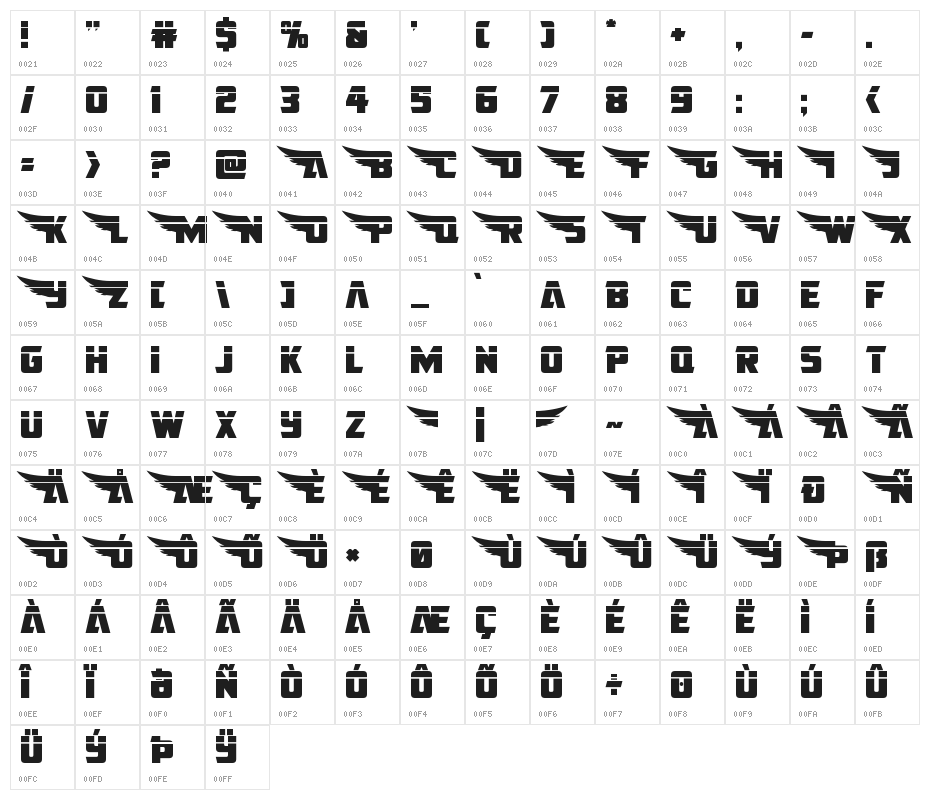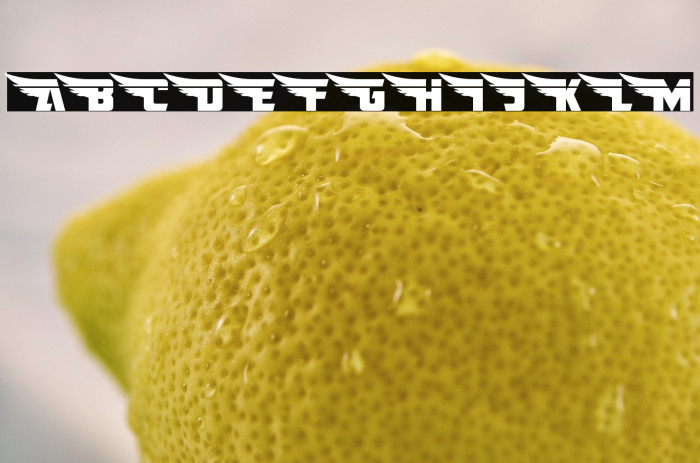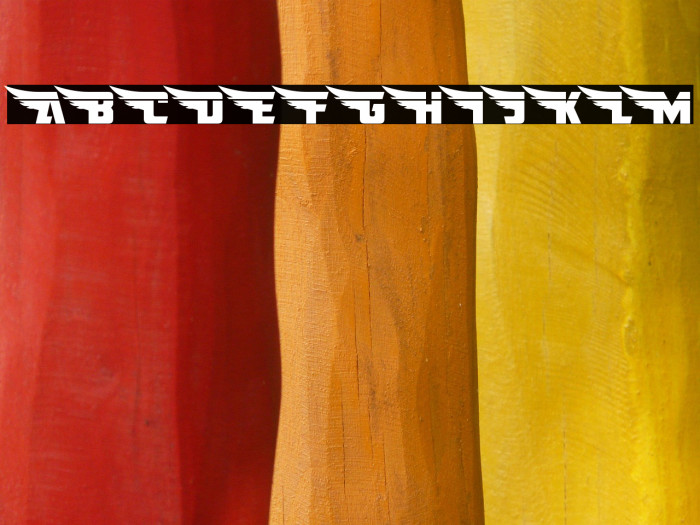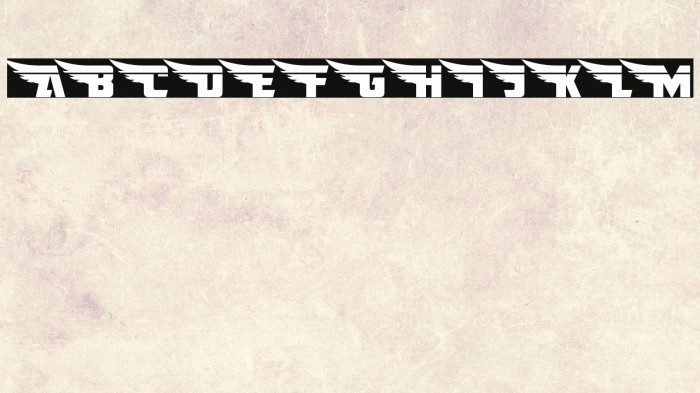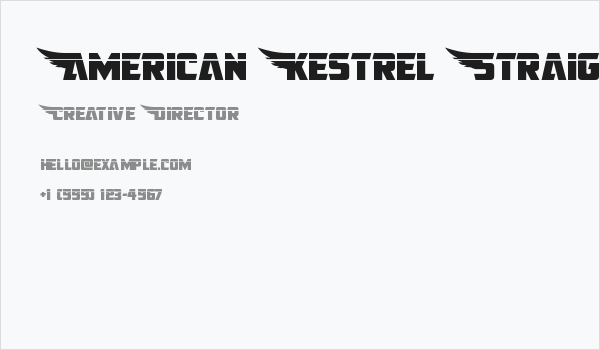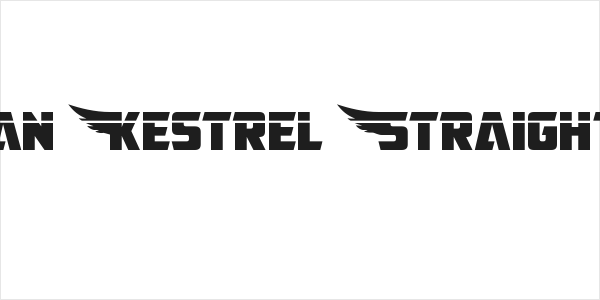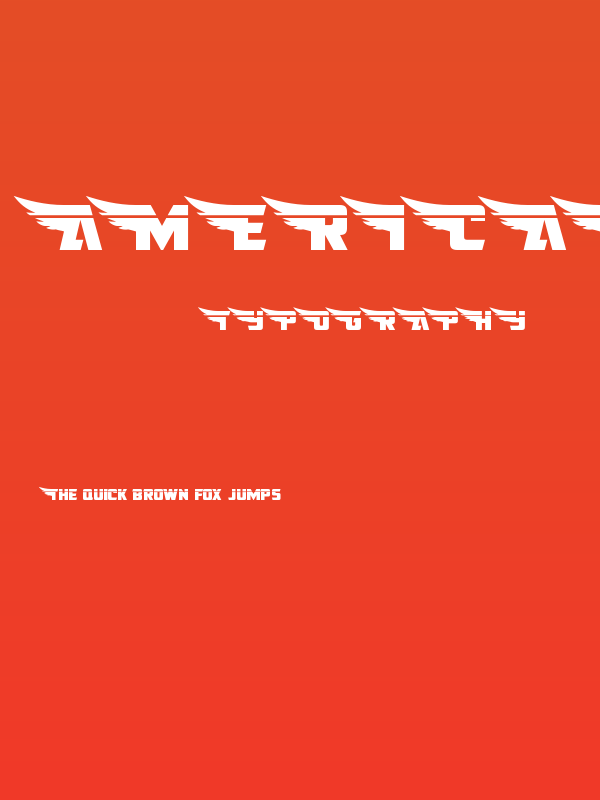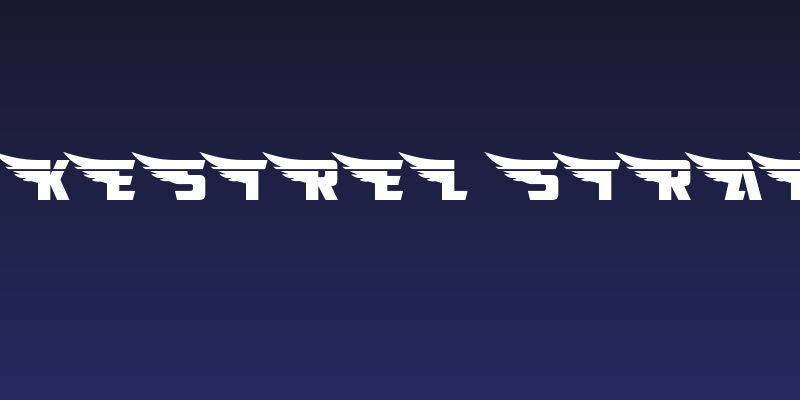
American Kestrel Straight Laser Font
American Kestrel Straight Laser Description
This bold and striking font features a unique and dynamic design with sharp, angular edges and a futuristic aesthetic. The uppercase letters are particularly distinctive, with a wing-like extension on the top left, giving a sense of movement and speed. The characters are wide and blocky, providing a strong visual impact. The numbers and special characters maintain the same bold style, ensuring consistency across all elements. This font is perfect for projects that require a modern and edgy look, such as sports branding, video game titles, or sci-fi themed designs.
| Proposed Projects | Ideal for sports branding, video game titles, sci-fi themes, and edgy graphic designs. |